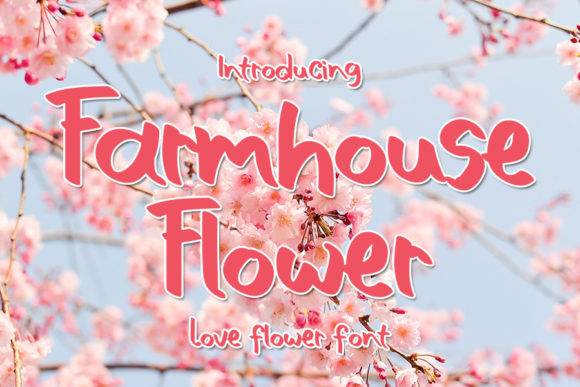
Prepare to be captivated by the enchanting script font, Farmhouse Flower, a masterpiece crafted by the renowned Eddygoodboy. This exquisite font exudes elegance and charm, making it the perfect choice for crafting resumes that radiate professionalism and sophistication.
With Farmhouse Flower, your resume will blossom into a visual masterpiece, capturing the attention of potential employers. Its delicate strokes evoke a sense of warmth and approachability, creating a welcoming ambiance that invites them to delve into your qualifications.
Let Farmhouse Flower be the brush that paints a picture of your skills and experience, transforming your resume into a captivating masterpiece. Its graceful curves and whimsical flourishes will showcase your creativity and attention to detail, making you stand out from the crowd.
Whether you're seeking to transition into a new career or climb the corporate ladder, Farmhouse Flower will lend your resume an air of distinction and elegance. It's the perfect font for professionals in a myriad of industries, from creative arts to education, finance, and beyond.
Embrace the power of Farmhouse Flower, the font that will make your resume shine brighter than a field of wildflowers. Let its beauty bloom on the page, showcasing your talents and aspirations in a way that leaves a lasting impression.